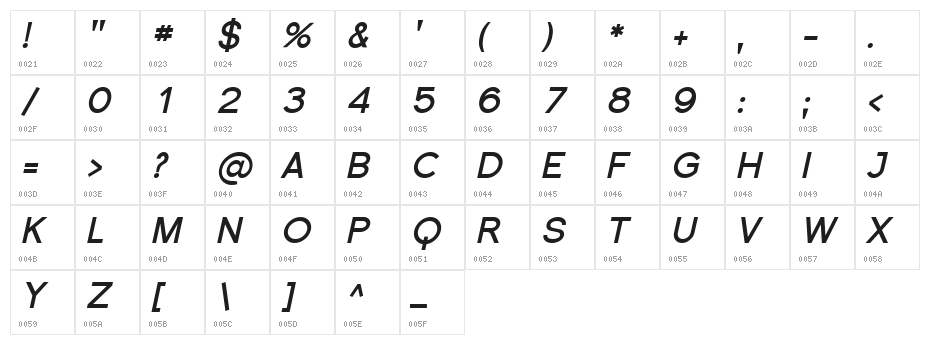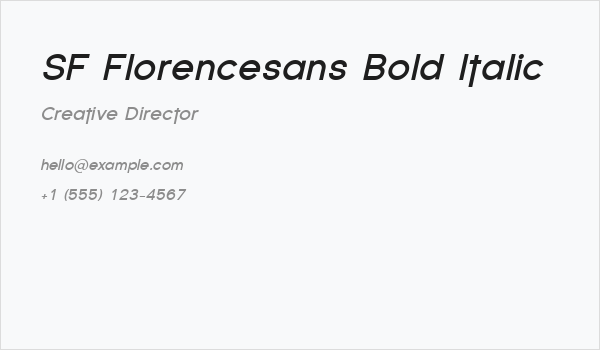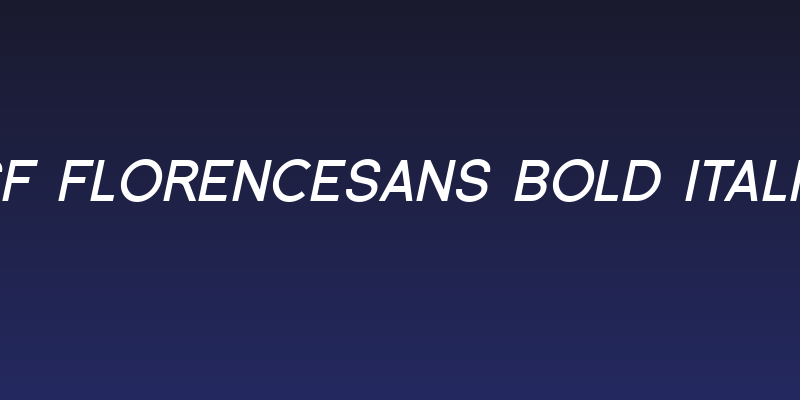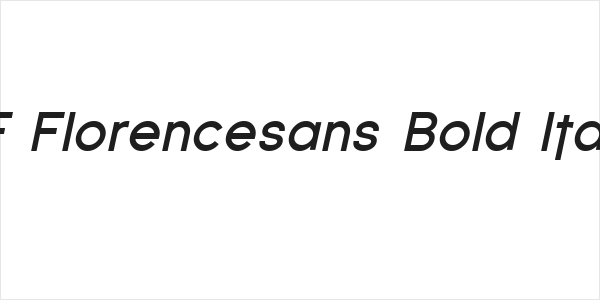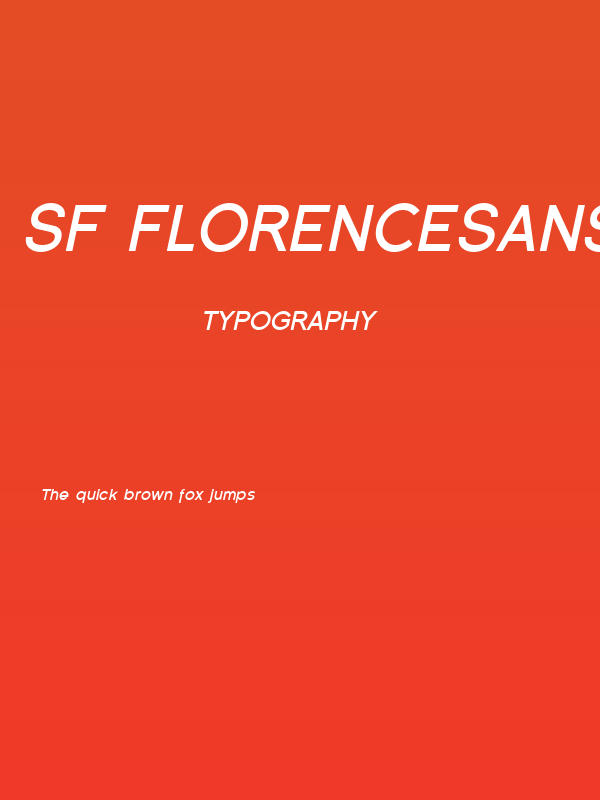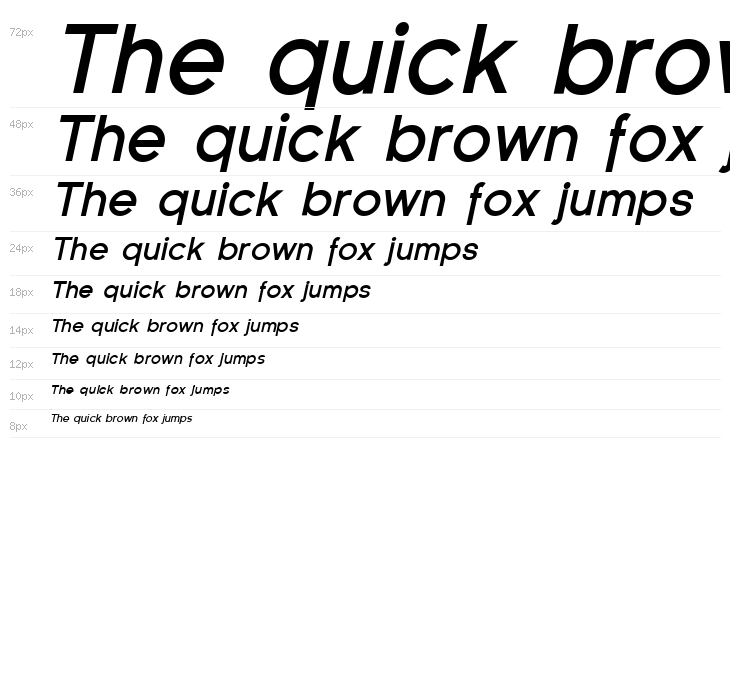
SF Florencesans Bold Italic Font
SF Florencesans Bold Italic Description
This font exhibits a modern and sleek sans-serif style with a bold and italicized appearance. The characters are slightly slanted, adding a dynamic and forward-moving feel. The strokes are consistent and smooth, providing a clean and professional look. The uppercase letters are well-proportioned, while the lowercase letters maintain a uniform height, enhancing readability. The numerals are clear and distinct, making them suitable for various applications. Special characters are included, offering versatility for different design needs. Overall, the font's boldness and italic style make it ideal for attention-grabbing headlines and impactful design elements.
| Use Case | Headlines, Logos, Advertising |
| Proposed Projects | Ideal for branding, advertising, headlines, and digital media where a modern and bold statement is needed. |